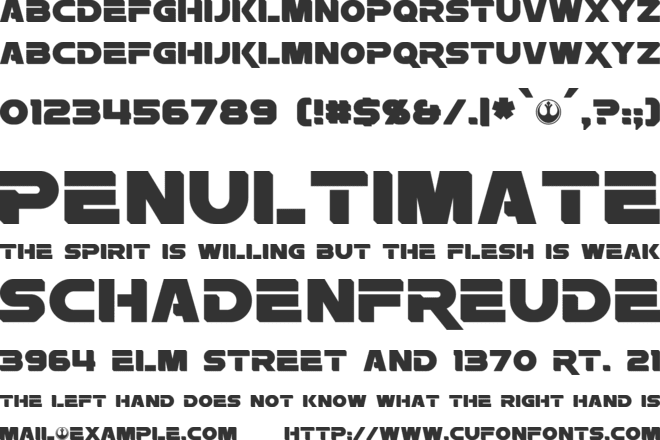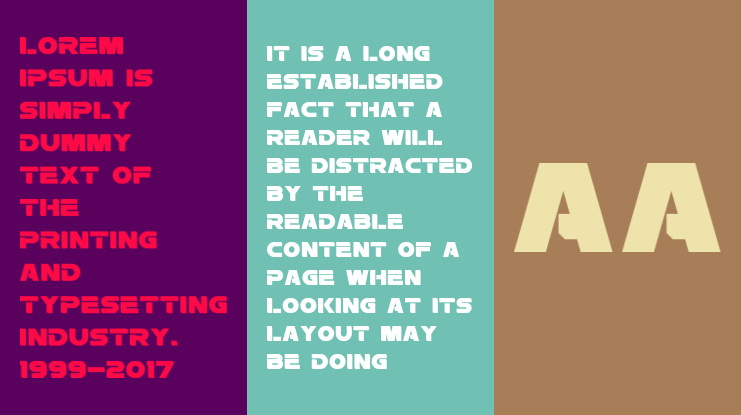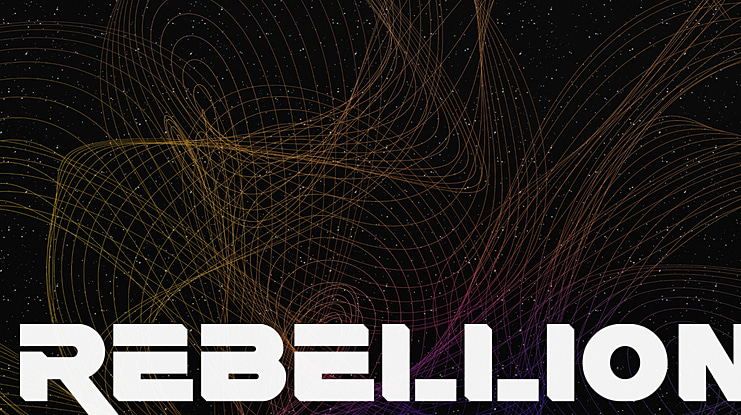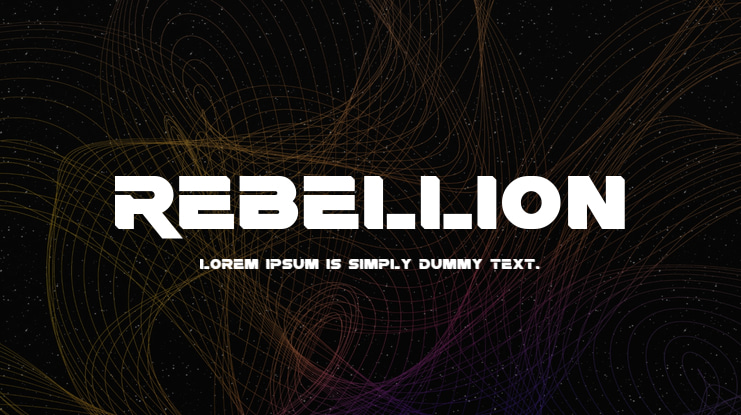
Rebellion Font Family
Neale Davidson
Rebellion is heavily based on the title logo of Disney/Lucasfilm’s Star Wars Rebels animated series. This is a thick, bold, font with minor flourishes and small corner ‘nicks’ in style. Includes full alphanumerics, extended punctuation, euro. Available in regular and italic weights.